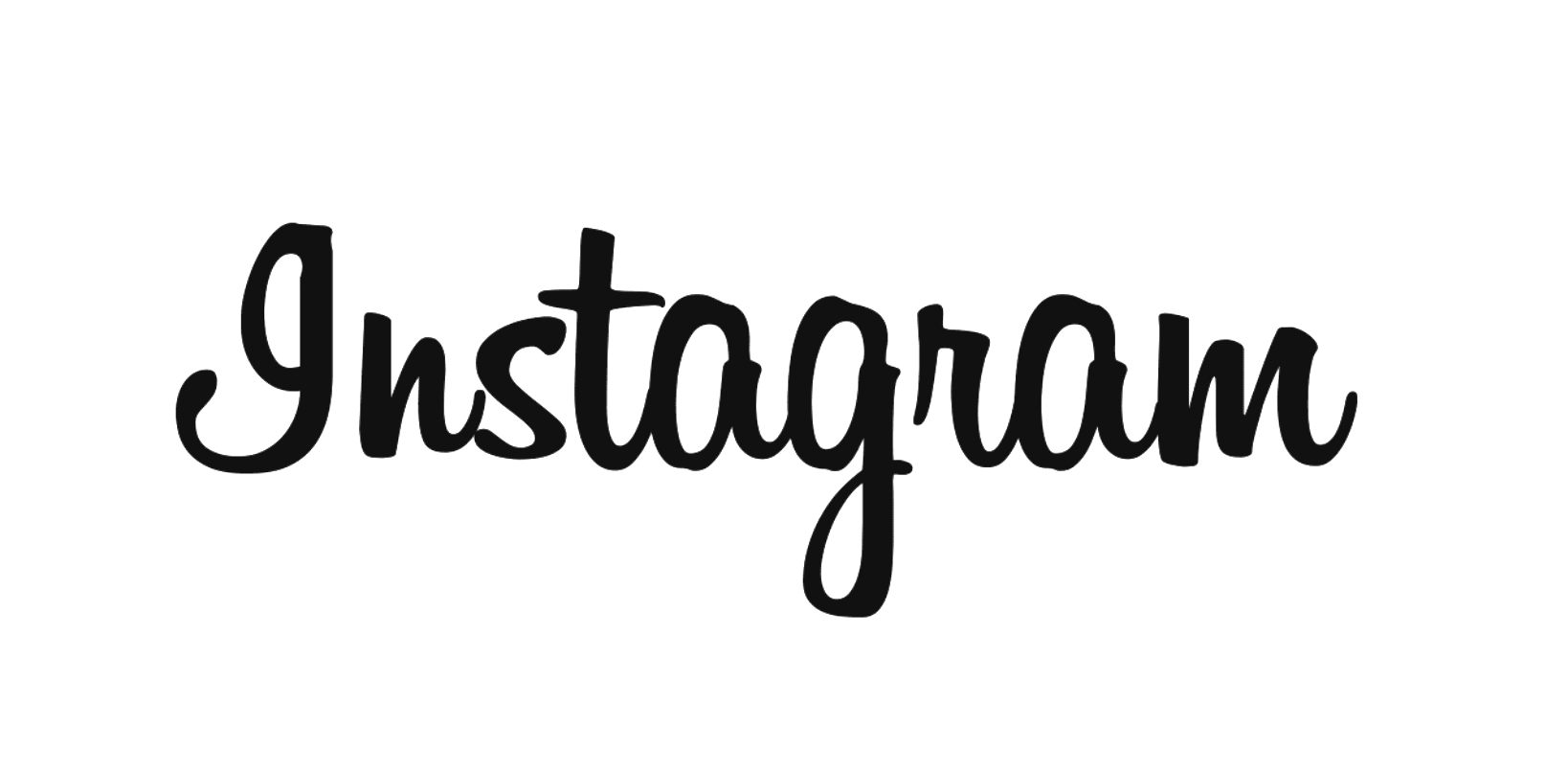
Instagram (old)
Instagram is an American photo and video-sharing social networking service owned by Facebook, Inc. It was created by Kevin Systrom and Mike Krieger and launched in October 2010 on iOS.
Billabong
Billabong Font is a fancy display typeface with an attractive brush and hand-drawn appearance. Type Associates took the charge for designing and releasing it for the first time. ... Designer for this stylish font took keenly to care for making all the glyphs and charters looking cool and highly legible.